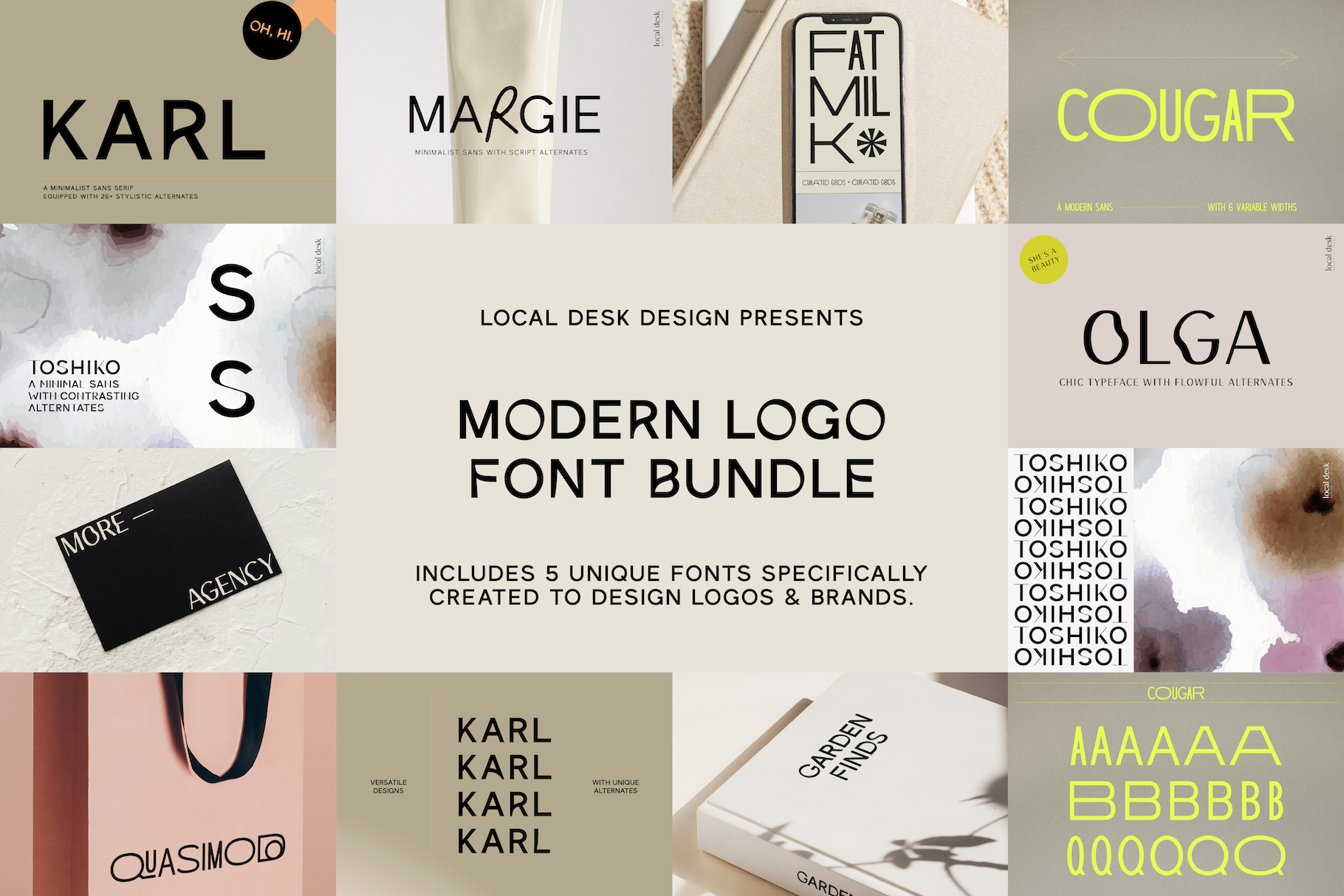
The Modern Logo Font Bundle
5 unique and modern typefaces have been carefully picked out and bundled. This bundle is tailored to make any logo design project an ease. Some of the best-selling fonts have been selected – all with modern, clean and stylish looks – and equipped with unique alternates and multiple stylistic features & ligatures.
Fonts Included: